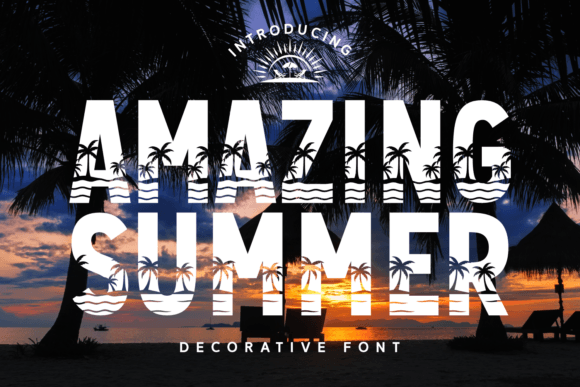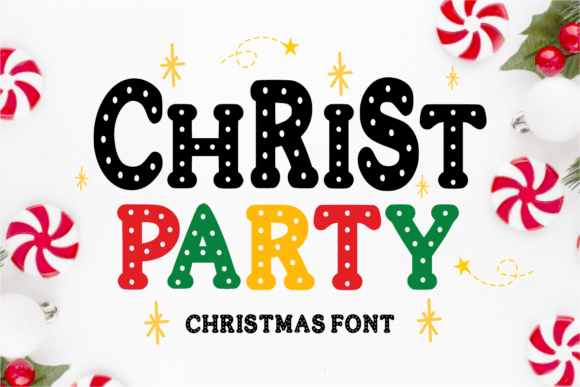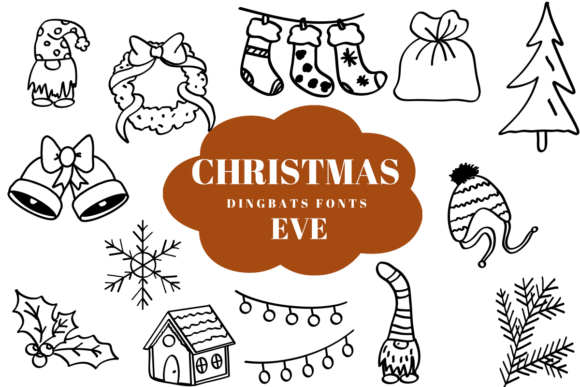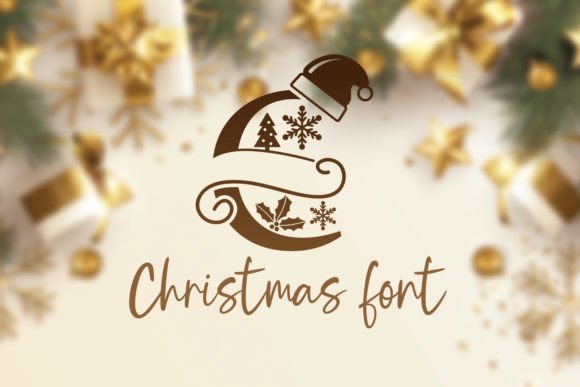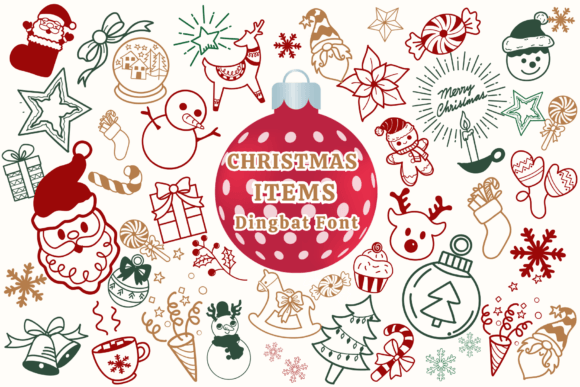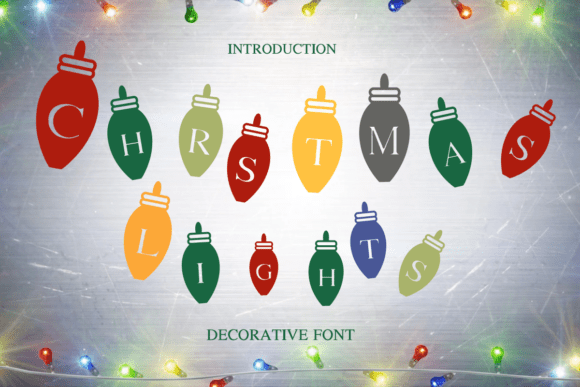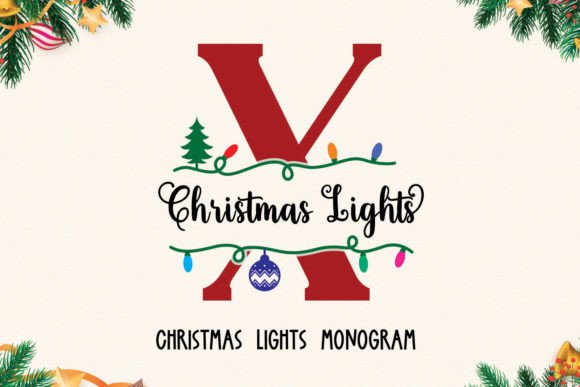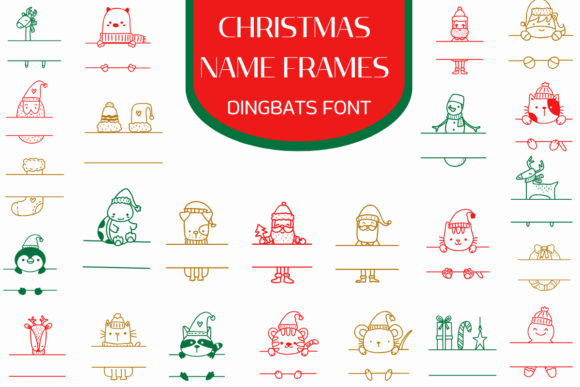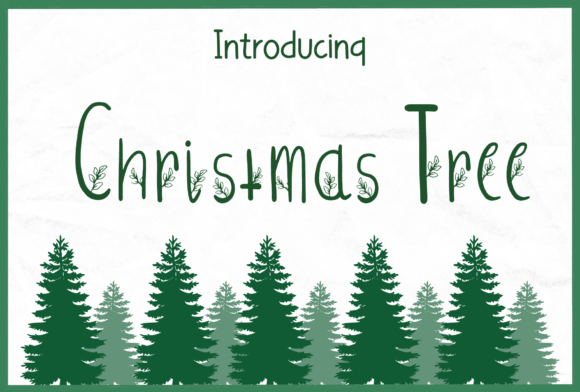
Merry Christmas Lettering Fonts: 28 Best Decorative & Dingbat Picks (2026)
Merry Christmas lettering fonts in this decorative and dingbat category solve a different problem than a headline script: instead of setting a tone with words, they drop in ready-made ornaments, wreaths, and icons, or build illustrative detail directly into each letter. Here are 28 decorative and dingbat Christmas fonts for crafters who want icon-ready graphics without drawing them from scratch.
Quick Picks
| Best Decorative | A richly illustrated font that doubles as standalone artwork |
| Best Dingbats | Ready-made holiday icons mapped to your keyboard |
| Best for Cards | Ornamental capitals that work well as drop caps |
| Best for Crafts | Clean, simple icon sets for Cricut and sublimation projects |
Decorative Fonts vs Dingbats
Decorative merry Christmas lettering fonts are still full alphabets, just built with extra ornamental detail like wreaths, snowflakes, or holly worked into each letterform, so you can type actual words. Dingbats fonts go further and replace letters with standalone icons entirely, so a few keystrokes drop in a stocking, ornament, or Santa hat without any illustration work on your part.
28 Merry Christmas Lettering Fonts
1. Christmas
Best for: Holiday Decor
Are you looking for a Christmas font? Do you want to create something that stands out and inspires creativity, imagination, and endless fun? This is the best option.
2. Snowing
Best for: Holiday Decor
Snowing is a cute and festive handwritten decorative font. Its cozy and unique style makes it incredibly fitting to a large pool of designs.
3. Christmas Tree
Best for: Holiday Decor
Christmas Tree is a fun and creative handwritten decorative font.
4. Ghost Doodle
Best for: Holiday Decor
Ghost Doodle, the perfect font to add a touch of whimsical charm to your Halloween designs!
5. Christ Party
Best for: Holiday Decor
6. Halloween
Best for: Holiday Decor
Cast a spell on your holiday crafting with Midnight Spellbook, a wonderfully bewitching, highly detailed illustrated display font!
7. Snow Christmas Duo
Best for: Holiday Decor
❄️ Charming Decorative Font Duo: Snow ChristmasGet ready for the coziest season with the Snow Christmas Font Duo!
8. Love Eberline Monogram Font
Best for: Monograms & Initials
Love Eberline Monogram is an incredibly unique and festive decorative font.
9. Mandala 2
Best for: Holiday Decor
Mandala 2 is a lovely decorative font, influenced by mandalas.
10. Christmas Lights Monogram
Best for: Monograms & Initials
Christmas Lights Monogram is a cute decorative font with an amazing look.
11. Holly
Best for: Holiday Decor
“Break the mold with this artistic decorative typeface. Designed to serve as a visual focal point, it infuses your projects with a unique and expressive personality.
12. Amazing Summer
Best for: Holiday Decor
Amazing Summer is a vibrant and festive typeface that embodies the carefree spirit and sunny vibes of the summer season.
13. Christmas Eve
Best for: Holiday Decor
Christmas Eve is a dingbats font with theme with a sketch style.
14. Christmas Magic Star
Best for: Holiday Decor
Illuminate your festive projects with Christmas Magic Star, a captivating decorative typeface that transforms classic block letters into stunning holiday-themed design assets.The Christmas Magic Star font is an innovative decorative typeface where each character is intricately integrated with a spiraling Christmas tree design adorned with stars.
15. Christmas Gnomes
Best for: Holiday Decor
Christmas Gnome is a joyful decorative font that brings holiday cheer to your designs!
16. Sparkling Star
Best for: Holiday Decor
Sparkling Star Dingbats is a fun and versatile dingbats font packed with a variety of star-themed icons.
17. Christmas Items
Best for: Holiday Decor
Christmas Items Dingbats is a cute and happy collection of festive. It’s perfect for adding a splash of holiday color to your designs.
18. Christmas Name Frames
Best for: Cards & Stationery
Christmas Name Frames is a Dingbats Fonts. You can use it for taking notes, writing a diary, or making greeting cards.
19. Edgar
Best for: Holiday Decor
Unearth eerie character and skeletal fun with Edgar, a decorative bone font!
20. Sunny Heart
Best for: Holiday Decor
Spread love and sunshine with the ultra-decorative Sunny Heart font.Bursting with floral motifs and tiny heart accents, this Sunny Heart typeface is a celebratory explosion of sweetness and detail.
21. Gothic Tea Party Dingbats
Best for: Packaging & Labels, Stickers & Decals
Step into a delightfully dark and whimsical world with the Gothic Tea Party font duo!This unique bundle features two fonts packed with 52 hand-drawn images inspired by gothic charm, quirky tea party vibes, and a splash of spooky elegance.From striped teapots and haunted teacups to creepy cakes, bats, and Beetlejuice references, this set is perfect for Halloween crafts, gothic party invites, stickers, packaging, and more.
Are decorative Christmas fonts good for greeting cards?
Yes, especially as a large drop cap or standalone monogram paired with a simpler font for the rest of the card’s text.
Where else do merry Christmas lettering fonts get used?
Beyond cards, these merry Christmas lettering fonts show up often on gift wrap, ornament tags, mug designs, and seasonal social media graphics where a single decorative word or icon needs to carry the whole design.